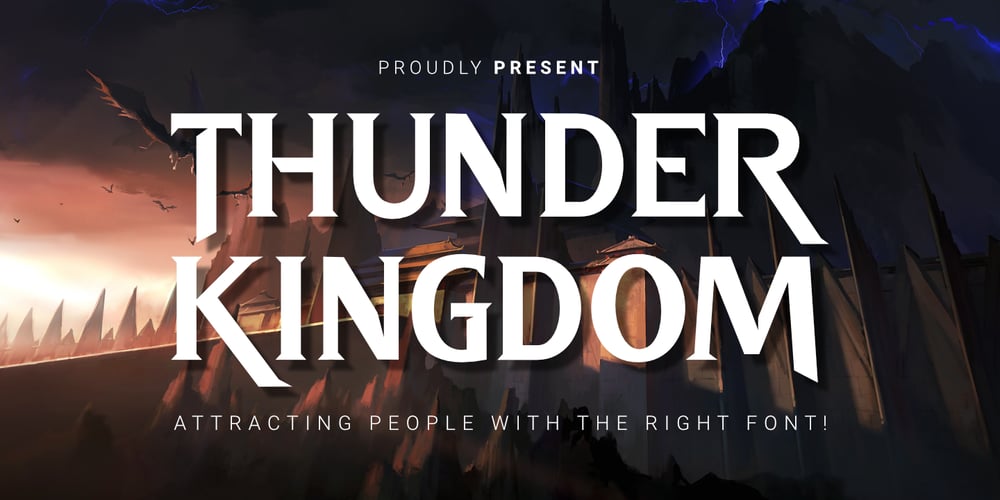
Thunder Kingdom Font Family was designed by Toni Dzulham and published by Dumadi. Thunder Kingdom contains 1 styles and family package options. An elegant and charismatic look is a very suitable nickname given to this font.Thunder Kingdom is a character All-caps font, that comes with variations on Uppercase making this font perfect, comes with ligatures and Multilingual support for use in multiple languages.This font is perfect for fantasy, action, and adventure genre film titles like the picture above. I hope you like this one work.